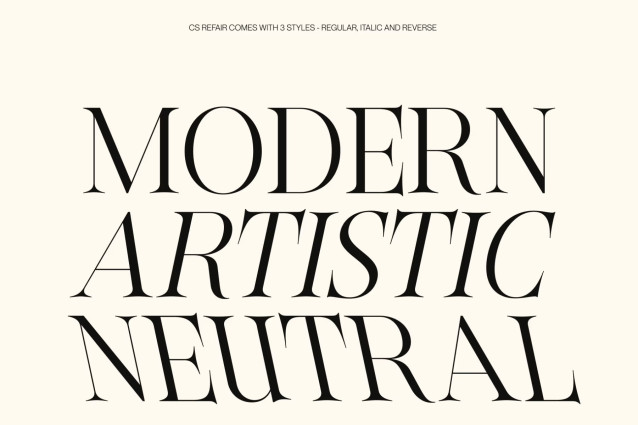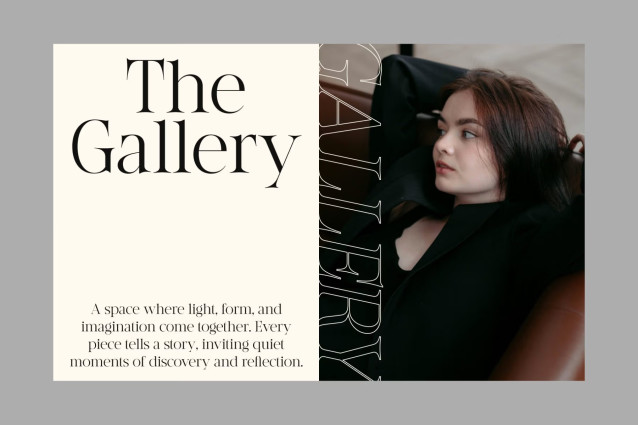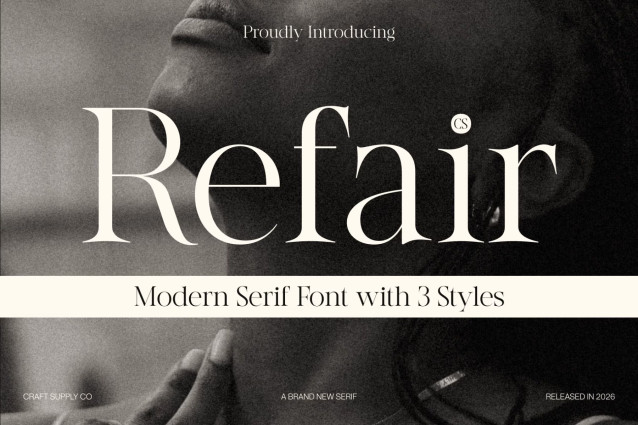
CS Refair – Modern Serif Font: Where Artistic Elegance Meets Professional Refinement
Slim Proportions and Elongated Serifs
This is a modern serif font designed with slim proportions and graceful elongated serifs that create a refined and sophisticated visual presence. Its elegant structure conveys professionalism, artistic beauty, and contemporary luxury while maintaining a neutral versatility that adapts effortlessly to a wide range of design styles. Every character feels poised and balanced, delivering a timeless sense of style and distinction.
Elegant, Artistic, and Versatile Character
This font offers a typographic identity that feels elegant yet approachable, artistic yet professional. Its slender forms and carefully crafted details create a harmonious visual rhythm that enhances readability while adding a subtle sense of luxury and creativity. The result is a typeface that feels equally at home in editorial layouts and premium branding projects.
Timeless Sophistication for Contemporary Design
This font combines delicate elegance with practical versatility. Its neutral character allows it to complement a variety of creative directions, while its refined serif details add sophistication and personality to every composition.